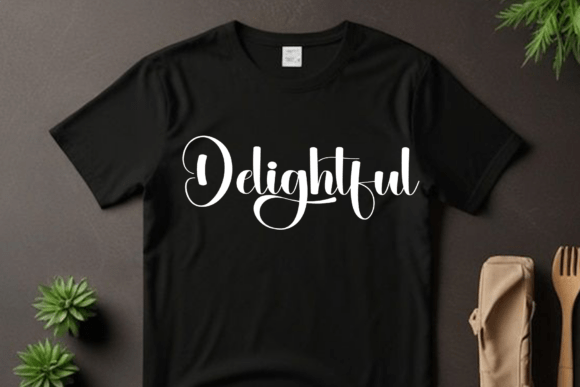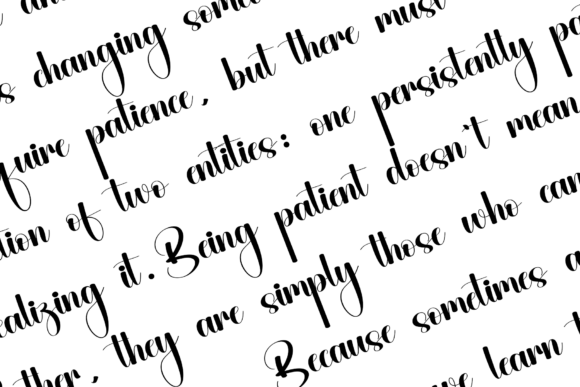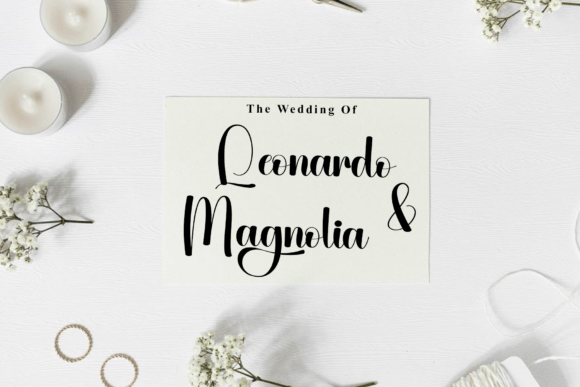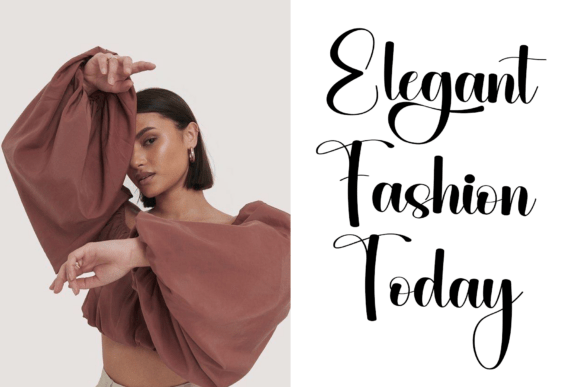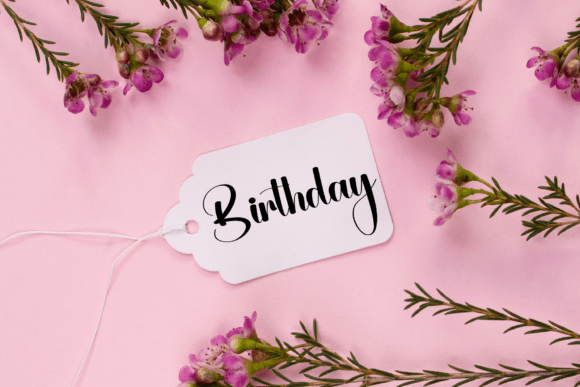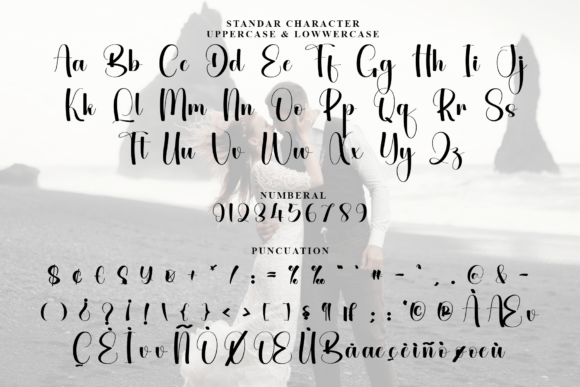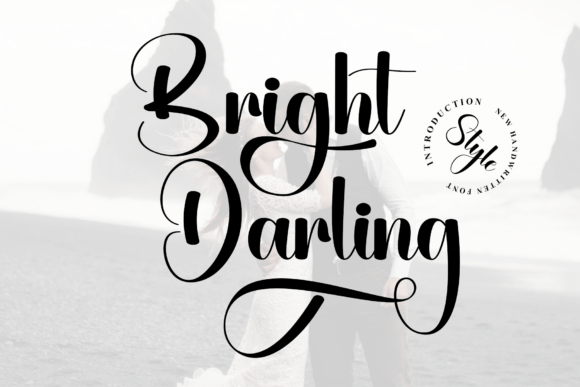
The Magic of Bright Darling Font: Elevating Your Designs with Elegance and Flair
I’ll never forget the time I was working on a wedding invitation project, and my client asked for a font that was both elegant and personal. I scoured the internet, trying out font after font, but nothing seemed quite right. That was until I stumbled upon Bright Darling Font. ✨ Its fluid strokes and gentle curves immediately caught my eye, and I knew I had found the perfect fit. In this article, I’ll share my love for Bright Darling Font, its features, and how to make the most of it in your designs.
An Honest Review of Bright Darling Font
- ✨ Elegant and Personal: Bright Darling Font combines sophistication with a personal touch, making it perfect for wedding invitations, logos, stationery, and branding projects.
- ✅ Fluid Strokes and Gentle Curves: The font’s natural flow and curves mimic real handwriting, adding a human element to your designs.
- ✅ PUA-Encoded for Easy Customization: With PUA encoding, you can access all glyphs, swashes, and alternate characters with ease, making it simple to customize your creations.
- ✅ Readability and Versatility: Bright Darling Font is both sophisticated and accessible, making it suitable for a wide range of design projects, from minimalist artwork to luxurious prints.
While Bright Darling Font is an amazing addition to any design project, there are a few things to keep in mind: ⚠️
- 🤔 Occasional Kerning Issues: As with any font, you may encounter occasional kerning issues, especially when using the font at smaller sizes.
- ⚠️ Limitations in Certain Software: Some software may not support the full range of OpenType features, which could limit your ability to access certain glyphs or swashes.
The Designer Inspiration Behind Bright Darling Font
Bright Darling Font was inspired by the beauty of handwritten calligraphy. Its creator aimed to craft a font that would bring a touch of elegance and personality to any design project. With its fluid strokes and gentle curves, Bright Darling Font is a testament to the power of handwritten typography.
| Font Name | Bright Darling Font |
| Author | Creatype Designer |
Q: What is Bright Darling Font?
A: Bright Darling Font is a modern handwritten script font that combines elegance with a personal touch, perfect for wedding invitations, logos, stationery, and branding projects.
Q: Is Bright Darling Font PUA-encoded?
A: Yes, Bright Darling Font is PUA-encoded, making it easy to access all glyphs, swashes, and alternate characters.